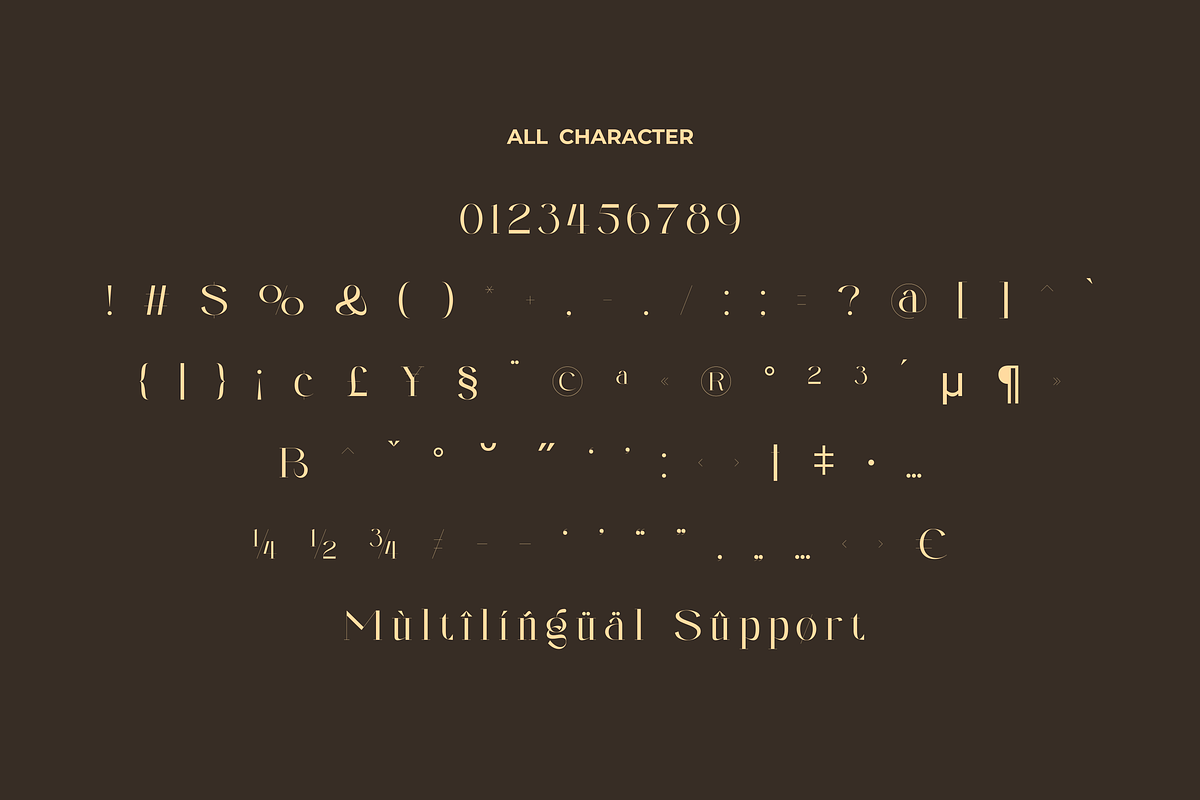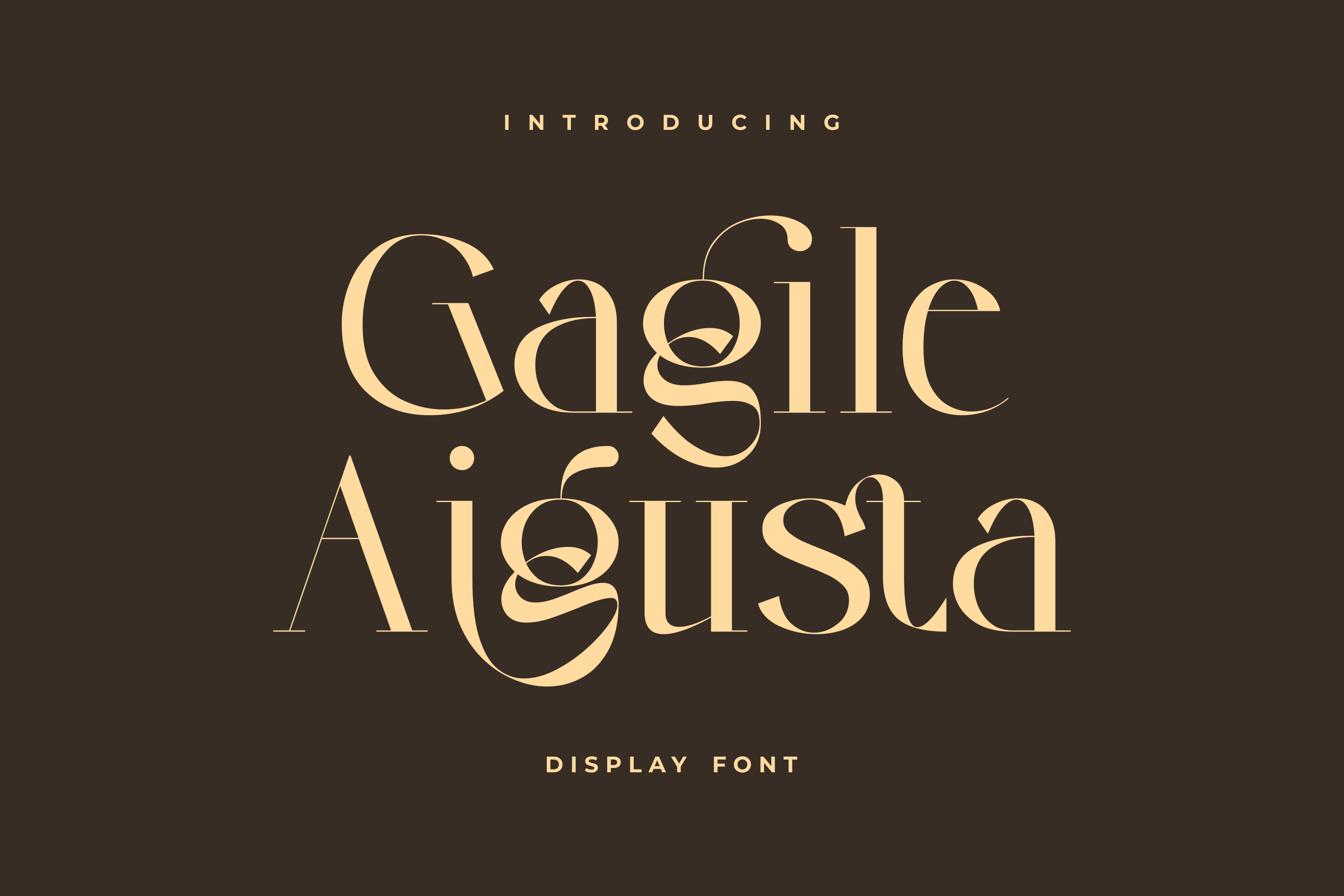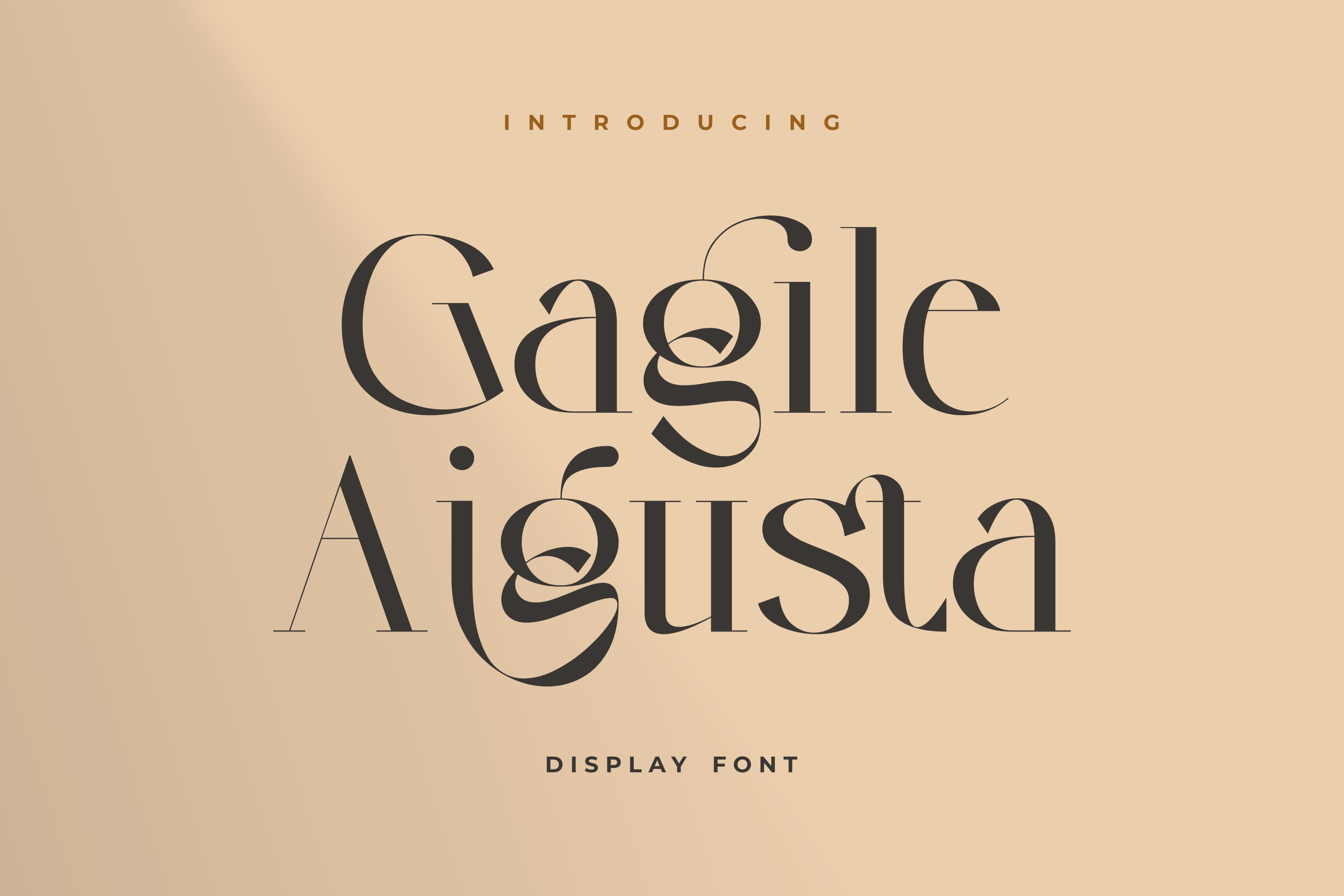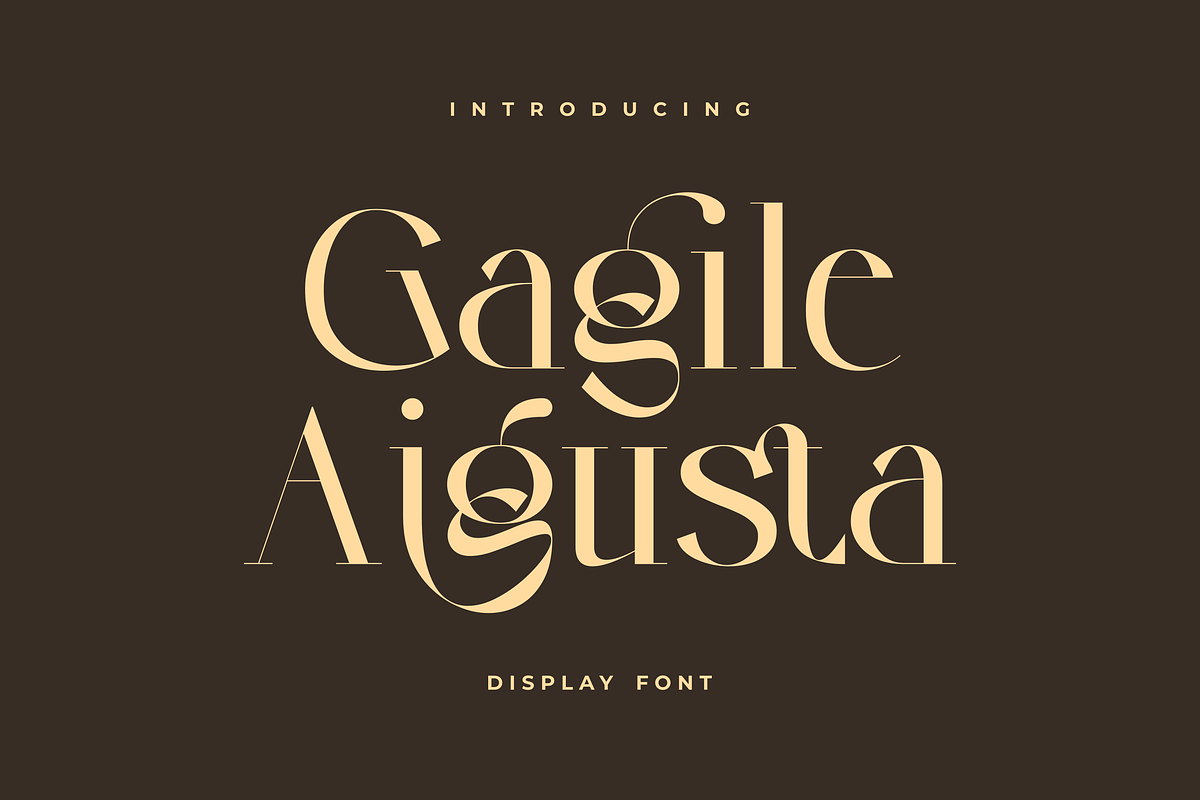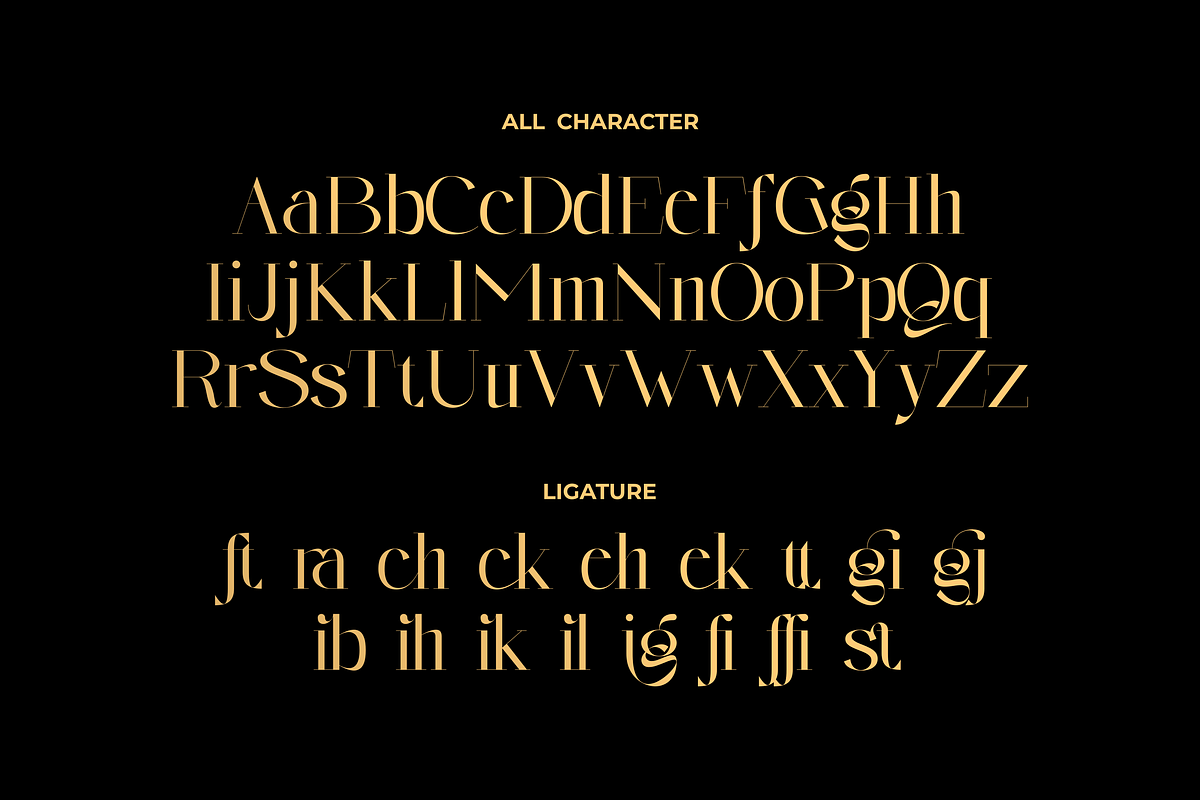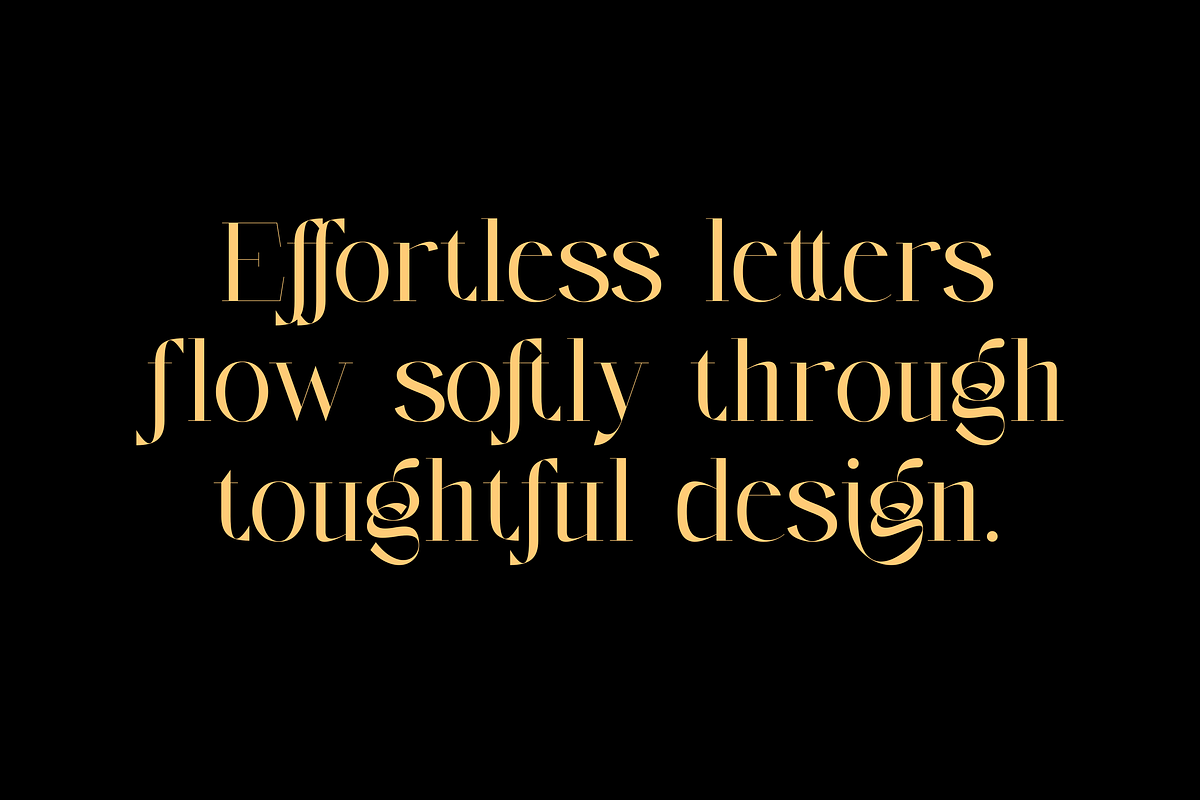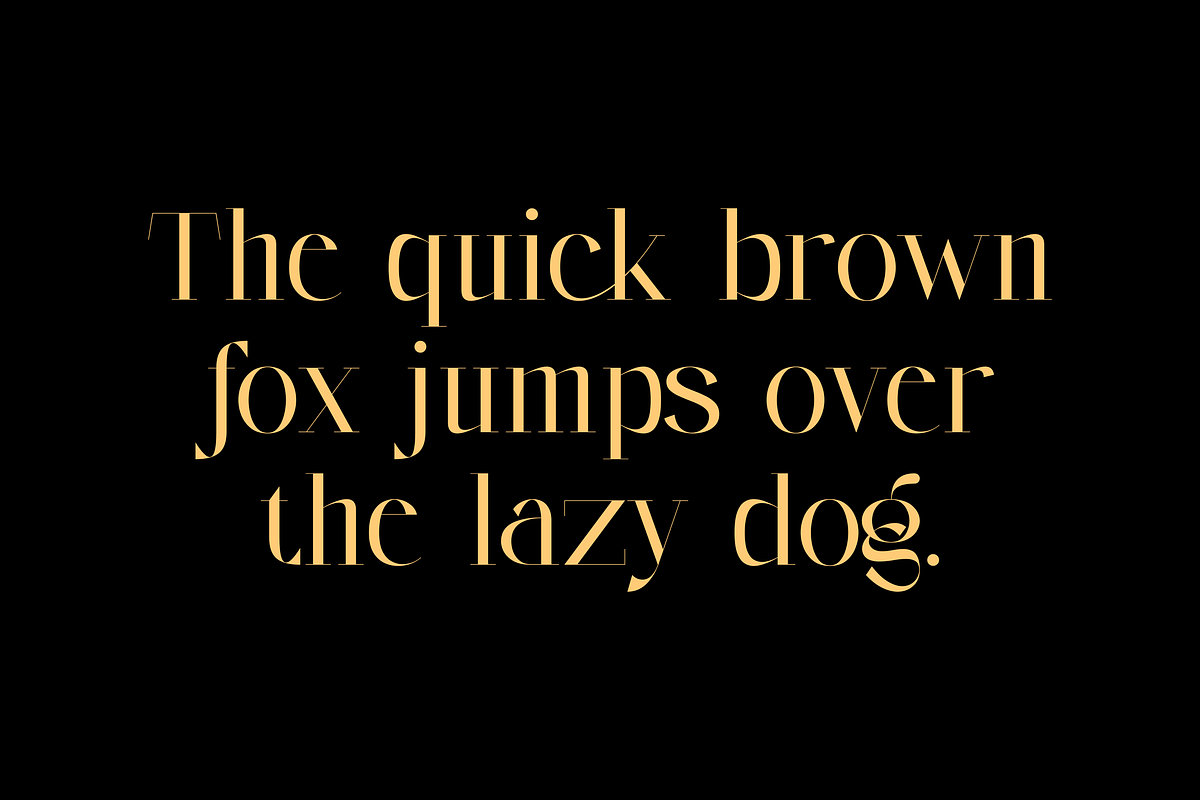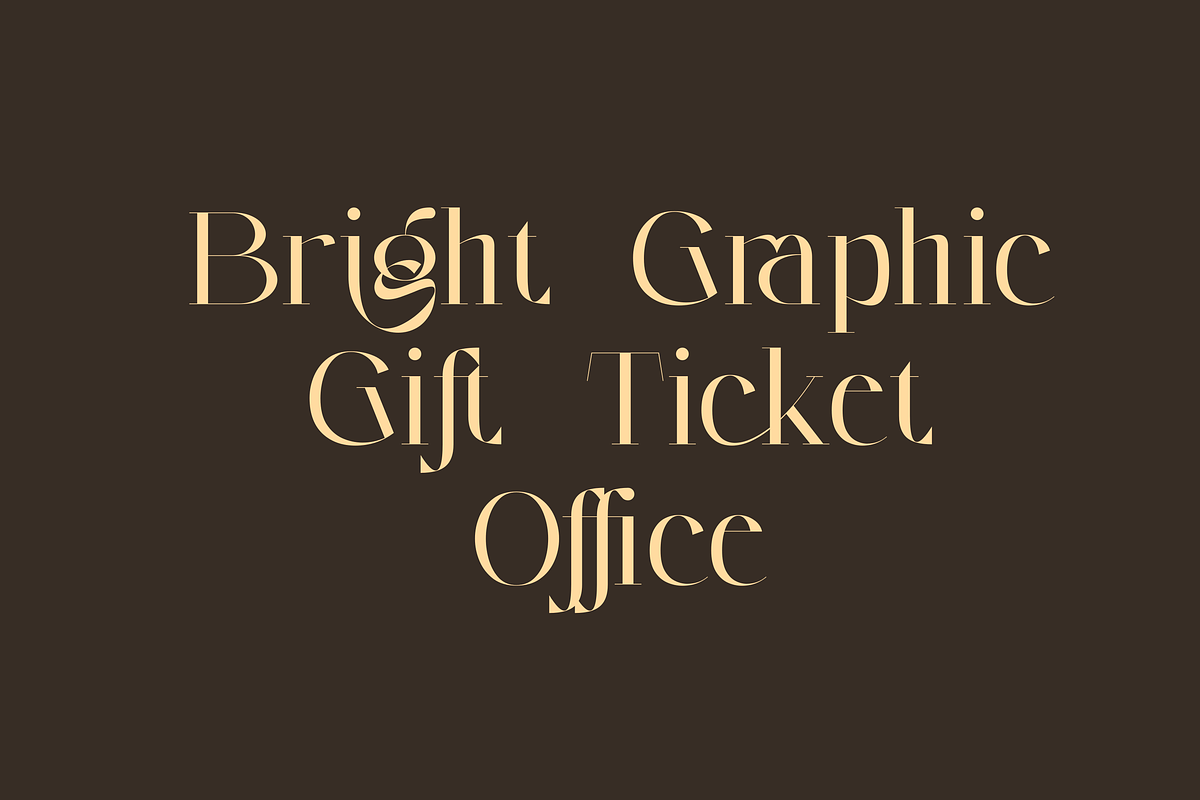
Gagile Aigusta - Modern Display Font
Gagile Aigusta is a modern elegant display serif font crafted with beautiful curves, artistic ligatures, and high-contrast letterforms that create a luxurious and sophisticated impression. Inspired by timeless fashion typography and contemporary editorial styles, Gagile delivers a perfect balance between classic elegance and modern aesthetics.
Its unique character shapes and stylish details make this font ideal for creating premium branding, fashion logos, beauty packaging, wedding invitations, magazine titles, social media content, posters, and other creative projects that need a classy and distinctive touch.
Designed to stand out while remaining refined and readable, Gagile adds charm, personality, and elegance to every composition.
Elegant Ligatures
Stylish Display Serif
Modern Luxury Look